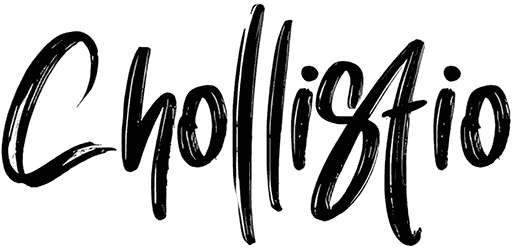
Chollistio Font
Chollistio font has that smooth handwritten personality that makes a headline feel warm, stylish, and a little more thoughtful than plain text could ever manage. Its soft script flow gives the letters a friendly boutique mood, while the clean strokes keep everything readable enough for logos, quotes, and packaging. You get that personal touch designers love without the messy “quick note” problem.
Use Chollistio font for wedding cards, beauty labels, café branding, candle packaging, planner covers, greeting cards, or sweet product tags. Pair this brush font with creamy backgrounds, floral details, or a quiet serif, and the whole layout starts feeling naturally charming.